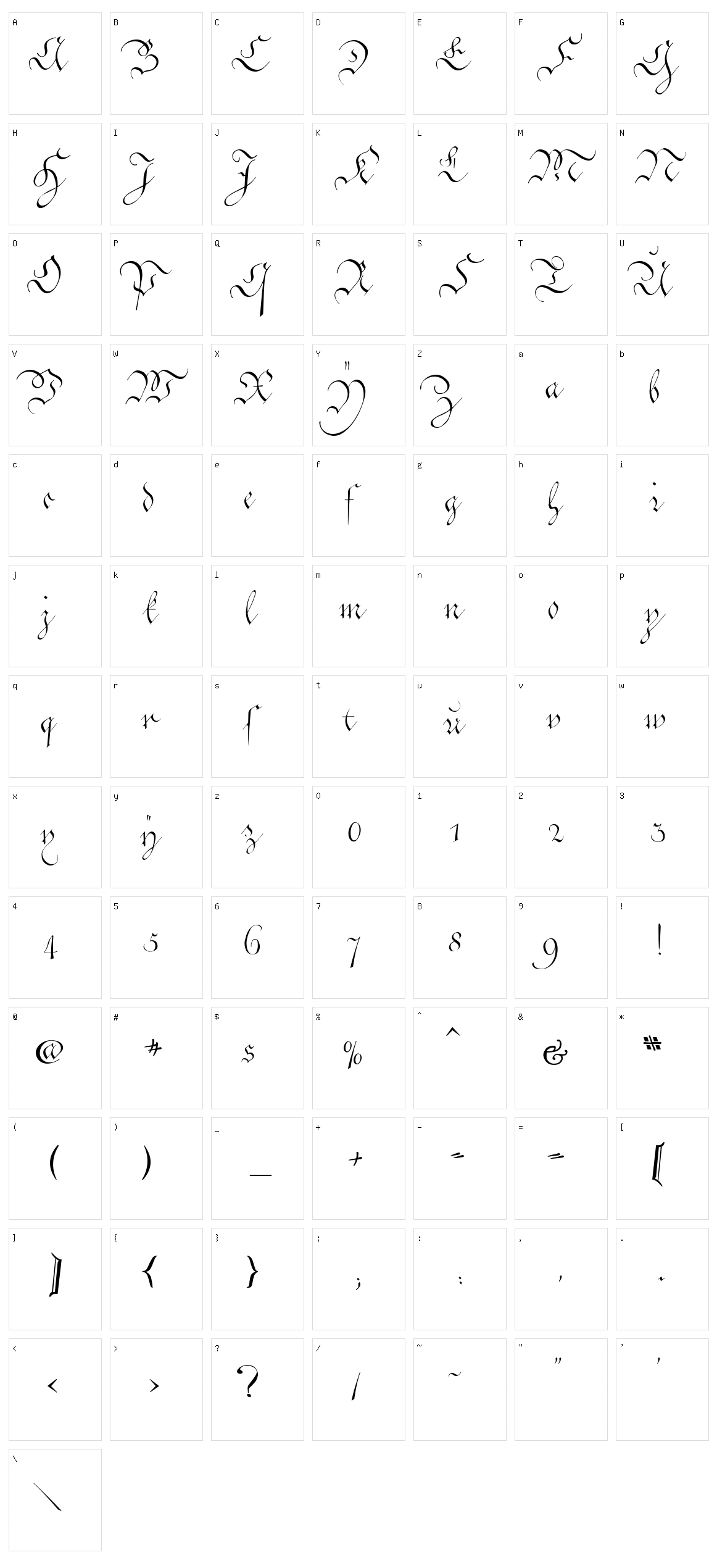
The free font C?ntgen Kanzley is carefully designed by Peter Wiegel, showcasing a thoughtful balance of creativity and usability and falls under the Script font style. When you download the ZIP file, it contains only 141.8 KB of font files, making it lightweight and quick to download. Please review the license details below to understand permitted usage and distribution rights. If license information is not available, we recommend using this font for personal projects only or contacting the author directly for commercial usage permissions.